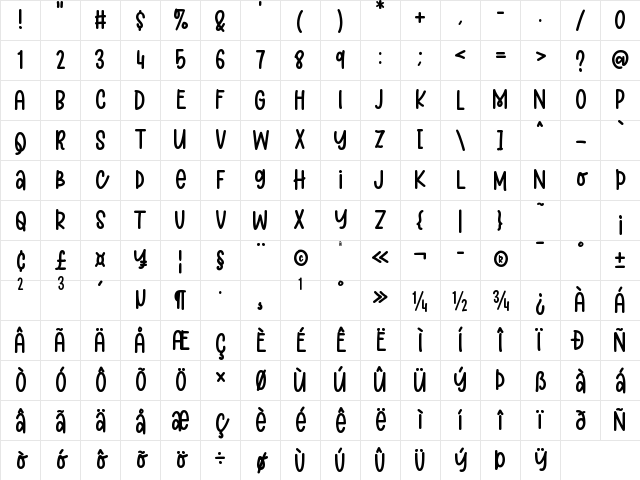
Aloha Lover Regular
Foundry: Dm Letter Studio
Designer: Dimas Prasetyo
Design Context for Aloha Lover
Aloha Lover is a composed and adaptable typeface that performs quietly and consistently across a wide range of design contexts.
Pro Tip: Use Aloha Lover in both headline and body roles to test its range before committing to a single application.